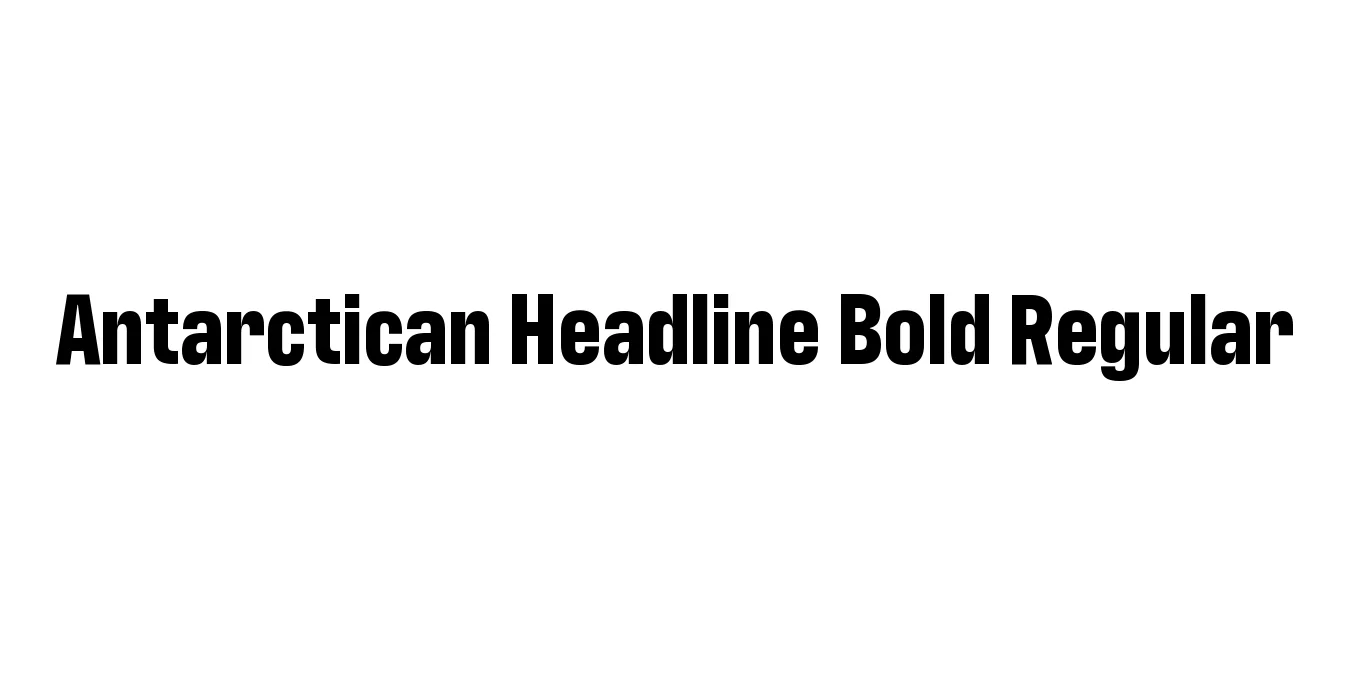
Antarctican Headline Bold Regular
Designed by James Edmondson
| Category | Sans-Serif / Display |
| Designer | James Edmondson |
Antarctican Headline is a robust, condensed sans-serif family designed by James Edmondson of OH no Type Co. It was originally conceived as a typeface that captures the spirit of industrial utility and high-impact communication. The 'Headline' variant specifically focuses on tight spacing and vertical emphasis, making it perfect for loud, assertive messaging where horizontal space is at a premium.
Inspired by the aesthetics of mid-century technical manuals and bureaucratic forms, the Antarctican Headline Bold Regular weight balances mechanical precision with a modern, high-contrast personality. Its flat terminals and uniform stroke widths provide a clean, rhythmic texture that remains legible even at extreme scales. It has become a favorite among graphic designers for branding projects that require a balance of authority and contemporary flair.
Antarctican Headline Bold Regular Best Uses
Ideal for large-scale typography and bold announcements.
Perfect for magazine covers and punchy titles.
High visibility on mobile screens due to its condensed nature.
Strong choice for logos requiring a professional, modern look.